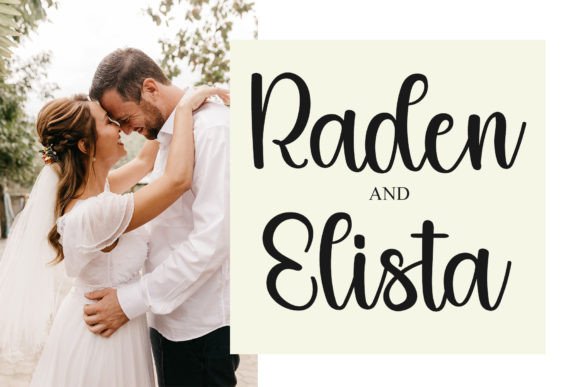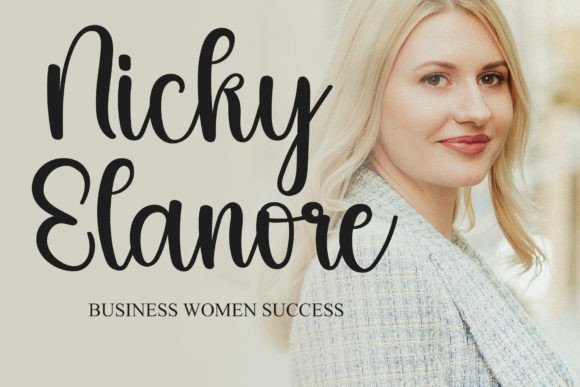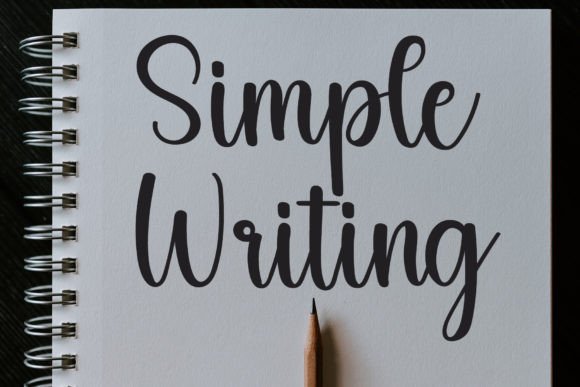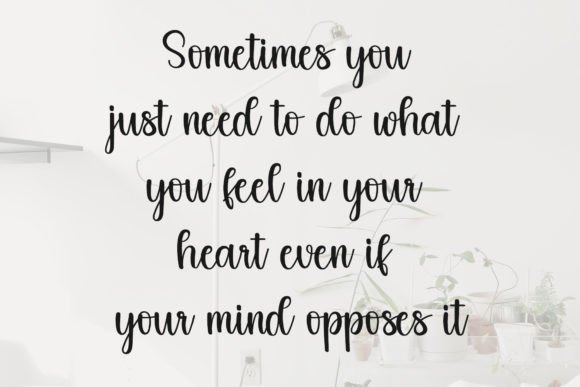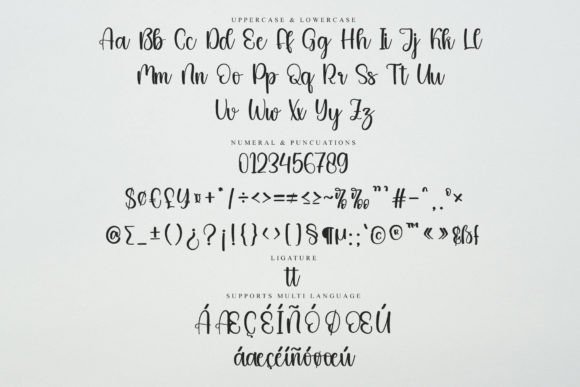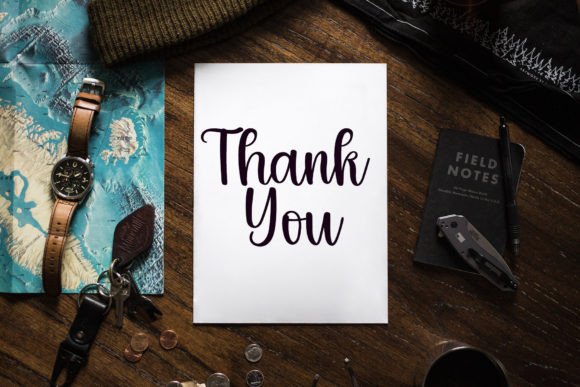
Introduction to Religious Font
Do you remember that moment when you stumbled upon the perfect font for your creative project? The one that makes your design stand out and leaves a lasting impression? For designers, finding the right font can be a game-changer. It’s the difference between a good design and a great one. And that’s exactly what we’re going to talk about today – the elegant Religious Font.
Religious Font is a stunning script font that exudes high quality and sophistication. Its dainty strokes and elegant curves make it perfect for any project that requires a touch of romance. Whether you’re working on a branding project, creating a logo, or designing labels, this font is sure to add a lovely, whimsical feel to your design. And the best part? It’s a versatile design resource that can be easily paired with a transparent background, giving you complete creative freedom.
Key Features of Religious Font
- High-quality design: Our Religious Font is crafted with precision and care to provide a unique and elegant look for your creative project.
- Transparent background: This feature allows you to easily place the font over any image or background, giving you complete control over the design.
- Large character set: Our font includes a wide range of characters, including uppercase and lowercase letters, numbers, and special symbols.
- High-resolution design: The font is designed at 300 DPI, making it perfect for printing and digital use.
- Unique, artistic style: Our Religious Font features a distinctive, hand-drawn design that sets it apart from other fonts.
Honest Review: Religious Font
As a designer, I’m always on the lookout for high-quality design resources that can elevate my creative projects. I recently had the chance to try out the Religious Font, and I’m excited to share my thoughts with you.
- The font’s high-quality design is evident in its clean lines and elegant lettering.
- The transparent background allows for seamless integration with any design element.
- The font is perfect for creating a sense of grandeur and sophistication in any design project.
- The font may not be suitable for casual or playful designs, as its elegance may feel out of place.
- The limited number of characters may require additional work to create a comprehensive font set.
Overall, I’m impressed with the Religious Font’s potential to elevate my designs. Its high-quality design and transparent background make it a valuable resource for any designer working on a creative project. While it may have some limitations, I appreciate the font’s unique charm and would definitely consider using it in the right project.
Tips for Getting the Most Out of Religious Font
Religious Font is commonly used in church newsletters, posters, and presentations. It can also be used in religious books, magazines, and websites. With its high-quality design and transparent background, Religious Font is a versatile design resource for any creative project.